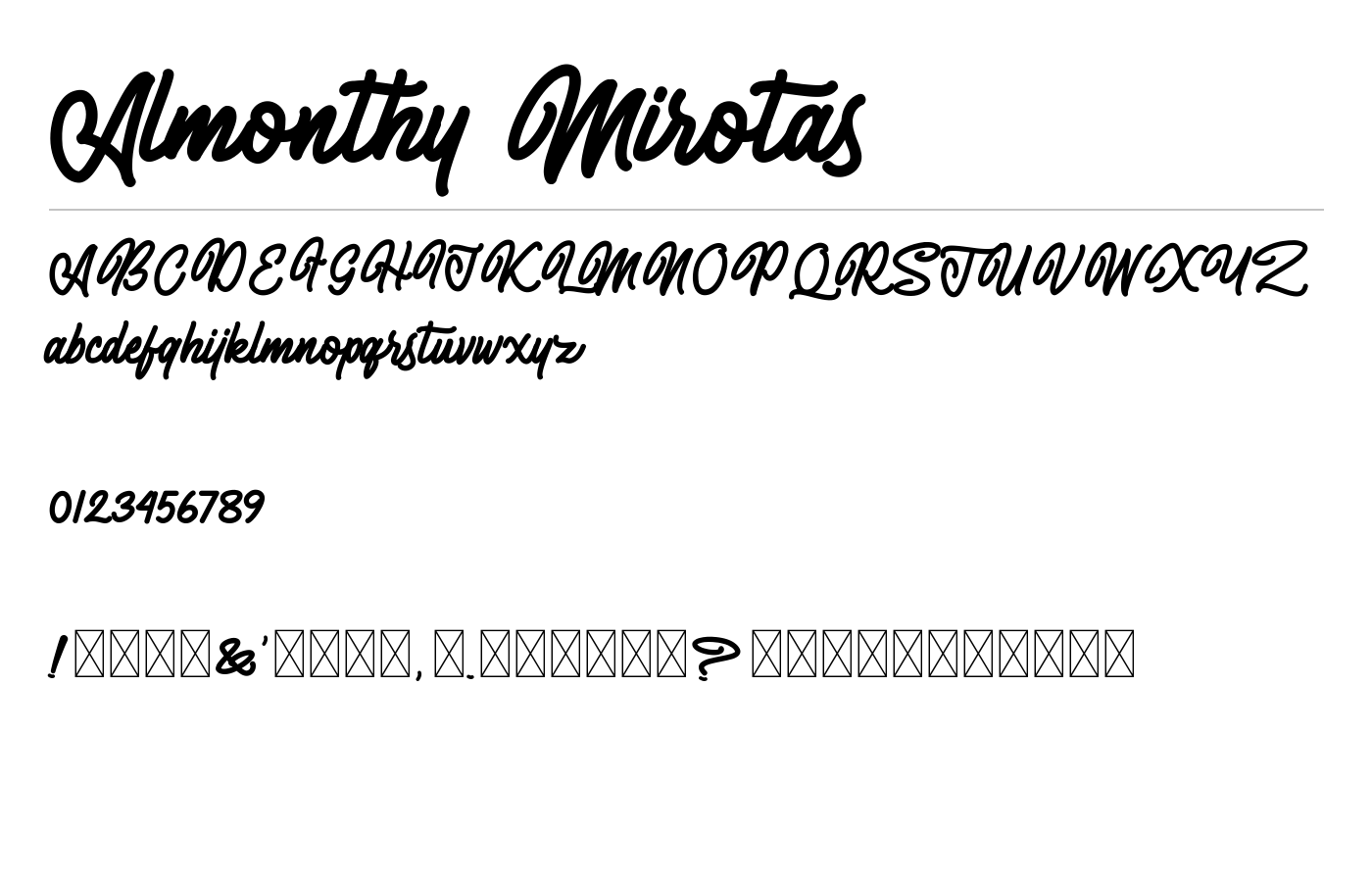
Almonthy Mirotas is a bold and stylish script font that exudes a lively and modern handwritten charm. Its fluid, connected letterforms and dynamic strokes make it perfect for creative branding, invitations, and eye-catching headlines where a personal, elegant touch is desired. This font works well in projects aiming to convey warmth and personality with a contemporary flair.
Almonthy Mirotas Font
About Almonthy Mirotas Font